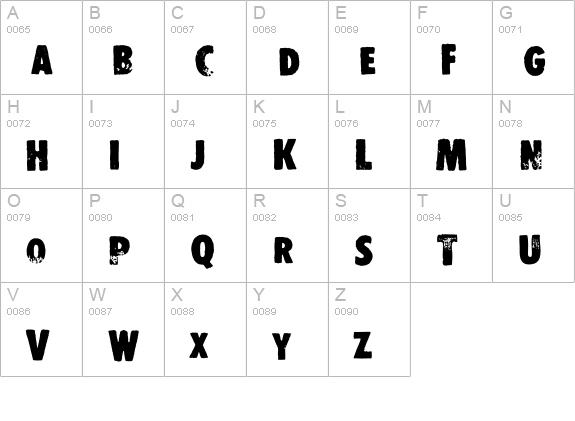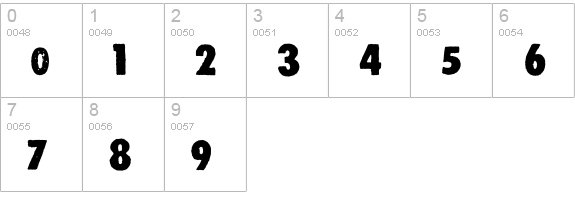
STOMPER-REGULAR Font Details
STOMPER-REGULAR is the standard, neutral variant in the STOMPER typeface family \xE2\x80\x94 well suited to general body text, paragraphs, and standard typographic work.
STOMPER-REGULAR font is a bold and eye-catching typeface that commands attention with its strong, impactful design. Perfect for making a statement in headlines, posters, and branding materials, this font exudes a sense of confidence and power. The sturdy and robust letterforms of STOMPER-REGULAR make it a versatile choice for a wide range of design projects. Best of all, STOMPER-REGULAR font is available for free download at FontsMarket.com. This means you can easily access this striking typeface and incorporate it into your creative work without any cost. Don't miss out on the opportunity to add this dynamic font to your collection and elevate your designs with its impactful presence. Download STOMPER-REGULAR font today and unleash its bold energy in your projects.